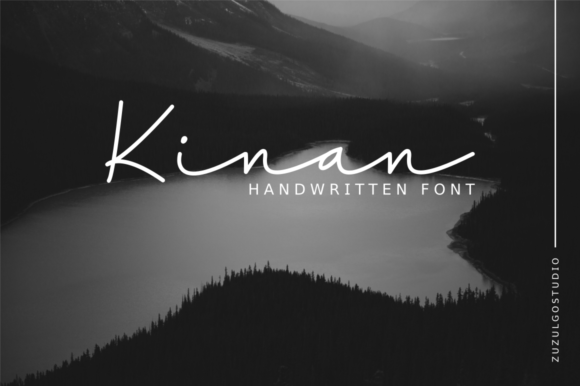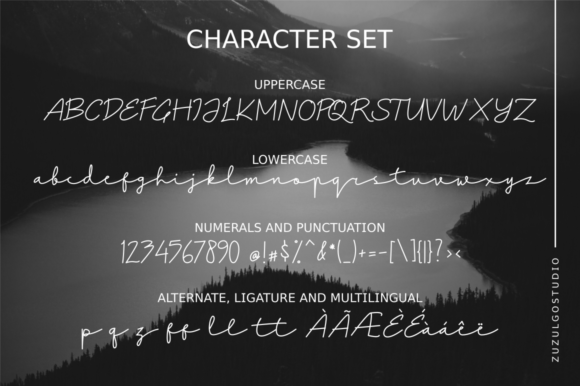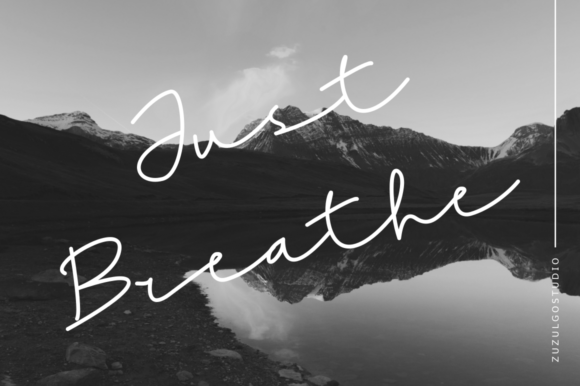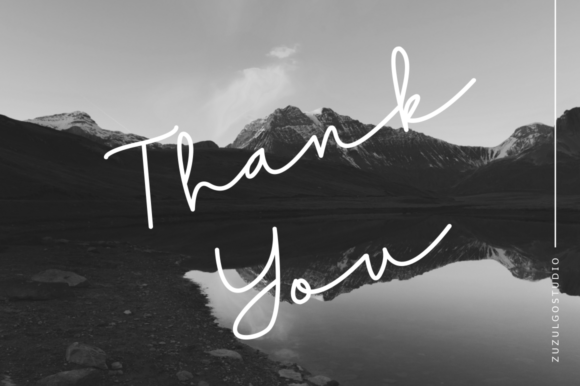
Kinan Font
About Kinan Font
Kinan introduces itself as a refreshing monoline script font, designed to seamlessly integrate into a wide array of project types. With its clean and consistent lines, this font brings a touch of refinement and modernity to any creative endeavor. Its versatility shines through, making it an excellent choice as a headline font that effortlessly elevates the visual appeal of your designs.
The monoline script of Kinan exudes a contemporary and sleek aesthetic, making it a perfect fit for projects seeking a modern touch. The consistency in its lines gives the font a polished and refined appearance, ensuring a professional and stylish presentation. Whether you’re working on branding, editorial design, or digital interfaces, Kinan serves as a versatile tool to enhance the overall visual experience.
As a headline font, Kinan makes a bold statement while maintaining a sense of sophistication. Its fresh and modern design catches the eye, drawing attention to the key elements of your project. Whether used in print or digital media, Kinan’s ability to command attention makes it an ideal choice for projects that require a strong visual impact.
Imagine Kinan gracing the cover of a trendy magazine, introducing readers to the contents within with its contemporary flair. Picture it enhancing the branding of a modern company, establishing a visual identity that exudes professionalism and style. The font seamlessly adapts to different design contexts, effortlessly integrating into diverse project types with its timeless yet fresh appeal.
In summary, Kinan transcends the boundaries of a typical script font; it’s a versatile design element that injects a breath of fresh air into your projects. Its monoline script brings refinement and modernity to the forefront, making it an excellent choice for headlines that demand attention. With Kinan, you have a tool that not only enhances the visual aesthetics of your work but also communicates a sense of contemporary elegance to your audience.